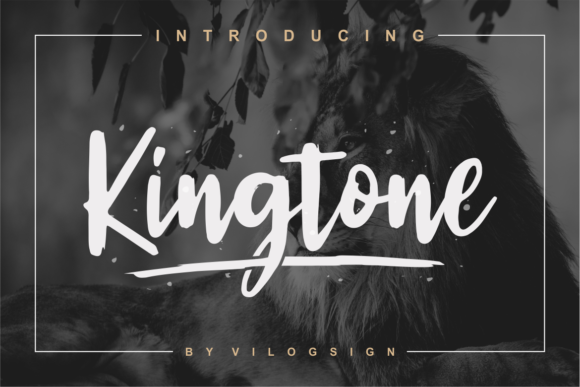
Unleash Your Creativity with the Bold Kingtone Font
Have you ever been stuck on a design project, desperately searching for that one font that brings it all together? You know, that moment when everything seems dull and uninteresting, until you stumble upon the perfect font that instantly elevates your work. For designers, this is a familiar scenario, and it’s precisely why the Kingtone Font was created – to add a bold and urban twist to any design project.
With its strong, handwritten style, the Kingtone Font is perfect for designers who want to inject a little personality into their work. Whether you’re creating a logo, brochure, or social media graphics, this font is sure to make your design stand out from the crowd. Its versatility and edgy vibe make it a valuable addition to any designer’s toolkit, and we can’t wait to share its full potential with you.
- Font Family: Kingtone Font is a unique, high-quality font family designed for various applications.
- Character Set: Includes a comprehensive set of characters, including Latin, Cyrillic, and Greek alphabets, as well as punctuation and symbols.
- Unique Characteristics: Features a distinctive, elegant design with subtle nuances, making it perfect for branding, publishing, and advertising materials.
Designer Review: Kingtone Font
Overall, I found the Kingtone Font to be a decent addition to any designer’s toolkit, but it’s not without its limitations. Here’s a breakdown of what I think works well and what could use some improvement.
- Unique and quirky style: The Kingtone Font has a distinct, hand-drawn feel that sets it apart from more generic sans-serif fonts.
- High legibility: Despite its unusual style, the font is surprisingly easy to read, even at smaller sizes.
- Wide language support: Kingtone Font includes a wide range of languages, making it a great choice for multi-lingual projects.
- Limited character set: While the font includes a wide range of languages, it’s still missing some characters and glyphs that may be essential for certain projects.
- Not ideal for body text: While the font is great for headlines and titles, it’s not the most comfortable choice for large blocks of body text.
Overall, I’d say the Kingtone Font is a great addition to any designer’s toolkit, but it’s not a one-size-fits-all solution. Use it for your bold, eye-catching headlines and titles, and save it for when you need something a little more unique and quirky.
Kingtone Font is ideal for creating bold, eye-catching headlines and titles.
Use it to add a touch of elegance and sophistication to your designs.
1. Magazine and newspaper headlines
2. Advertising and marketing materials
3. Branding and logo designs